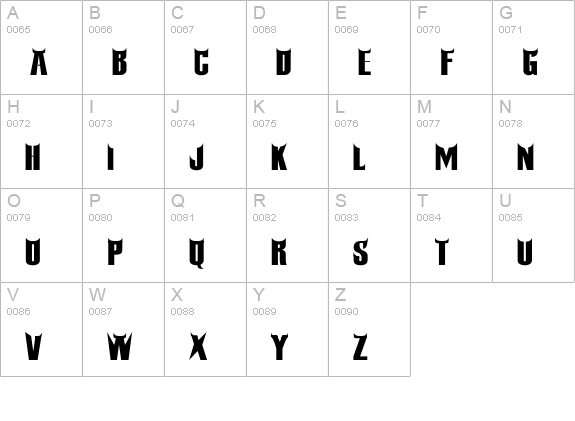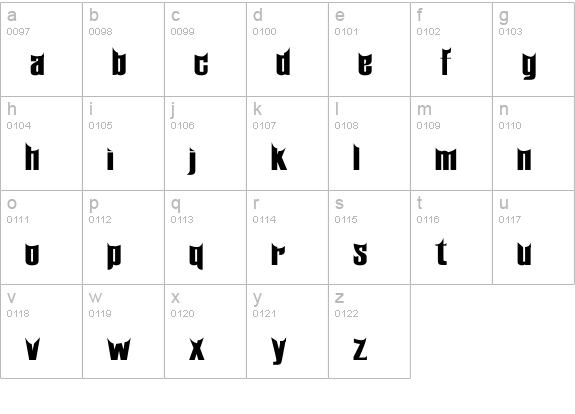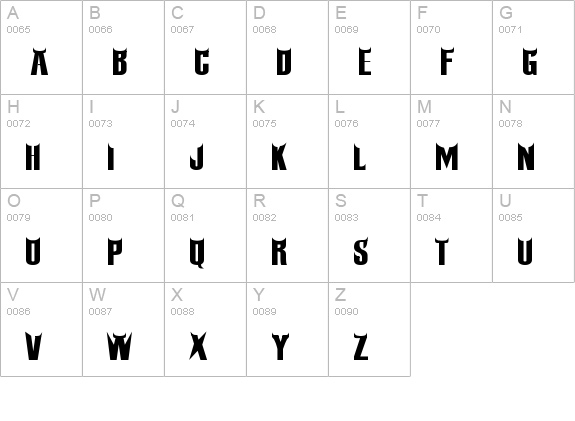
Minangkabau Font Details
The Minangkabau font is a stunning typeface that beautifully captures the traditional motifs and cultural essence of the Minangkabau people of Indonesia. With its elegant curves and intricate details, this font is not only visually appealing but also carries a sense of history and heritage. What makes the Minangkabau font even more special is that it is available for free download at FontsMarket.com. This means that you can easily access and use this unique font in your projects without any cost. Whether you are working on a design inspired by Indonesian culture or simply looking to add a touch of exotic flair to your creations, the Minangkabau font is a perfect choice. Embrace the beauty and richness of Minangkabau culture with this free and freely available font that will bring a touch of authenticity and uniqueness to your designs. Download it today and let your creativity soar with the captivating allure of the Minangkabau font.